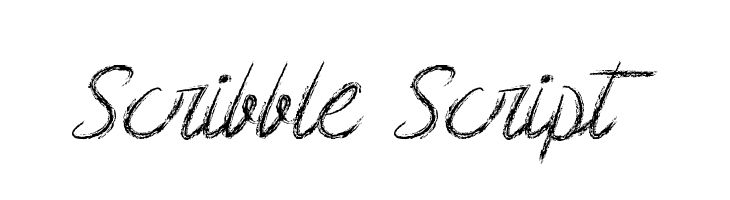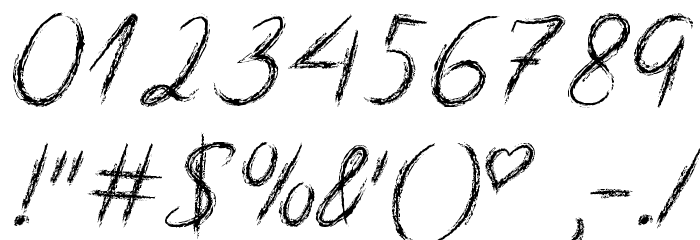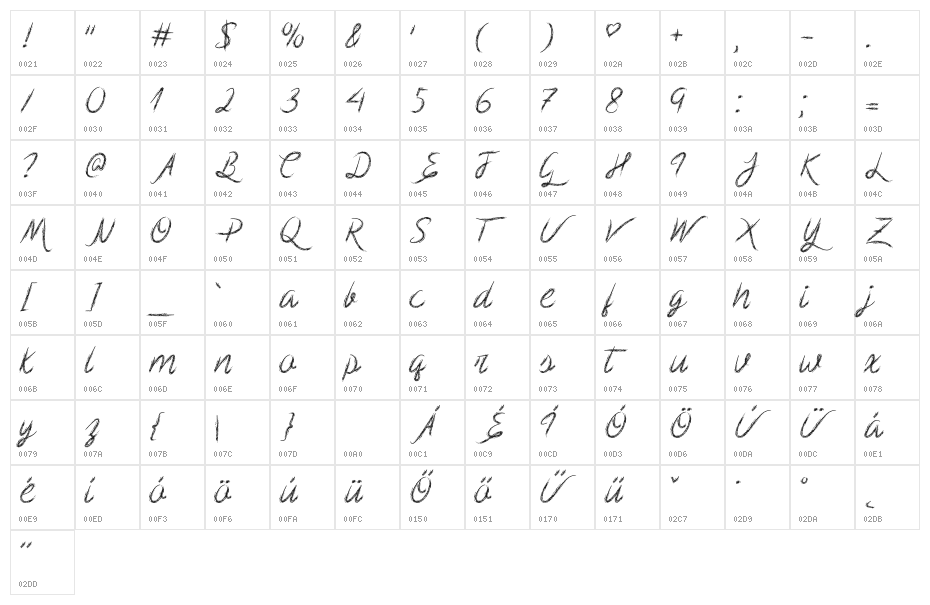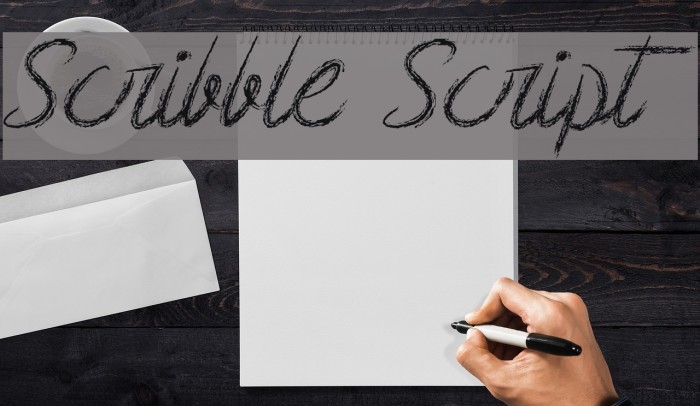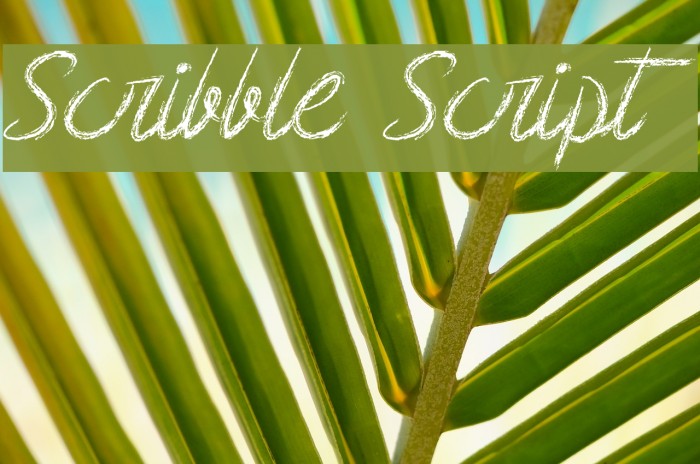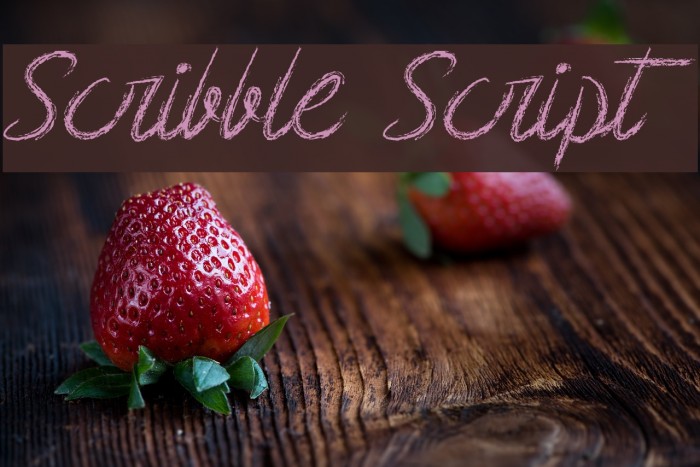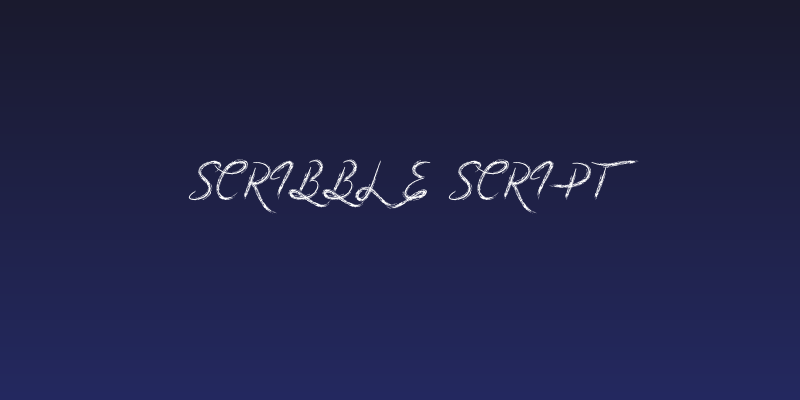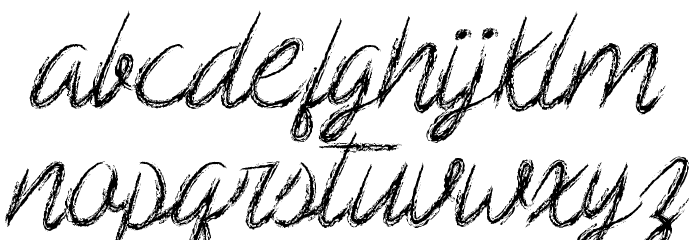
Scribble Script Font
Scribble Script Description
This font exudes a dynamic and energetic feel, characterized by its scribbled, hand-drawn appearance. Each letter is crafted with a sense of spontaneity, resembling quick, expressive handwriting. The strokes are uneven and textured, giving the font a raw and artistic look. The uppercase and lowercase letters maintain a consistent style, with elongated, flowing lines that suggest movement and creativity. Numbers and special characters are equally expressive, maintaining the font's cohesive, sketch-like aesthetic. This font is perfect for projects that require a personal, artistic touch.
| Overall Style | Artistic |
| Proposed Projects | Ideal for artistic projects, personal branding, creative posters, and invitations. |